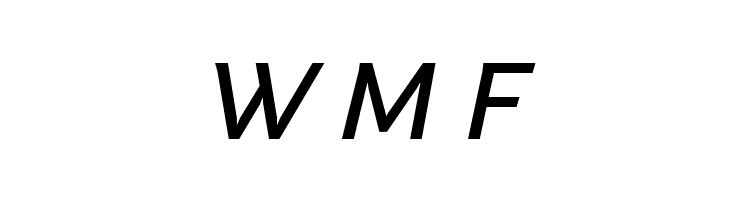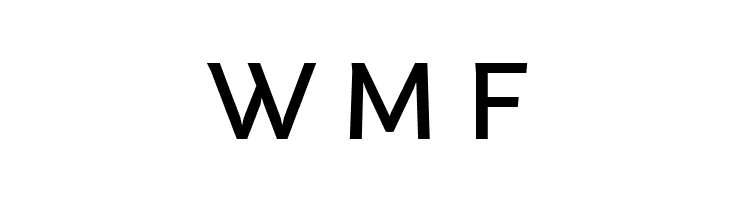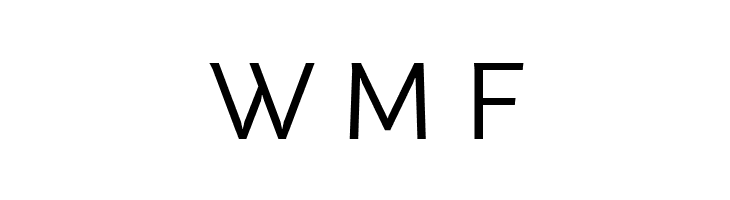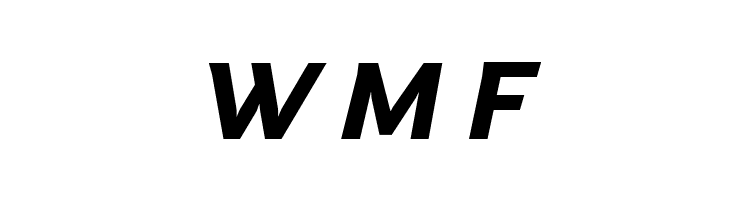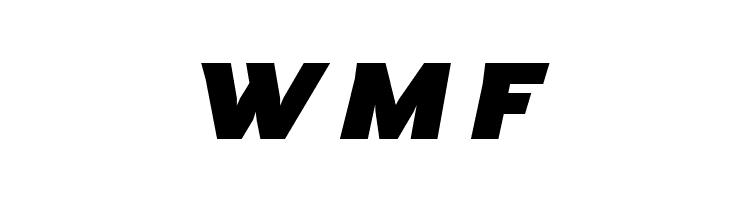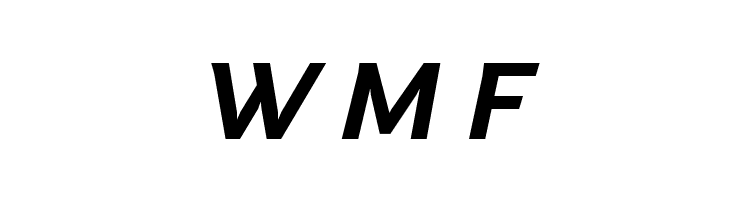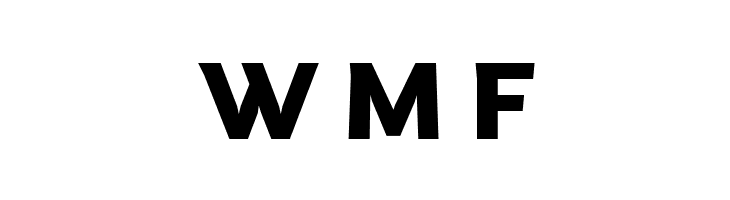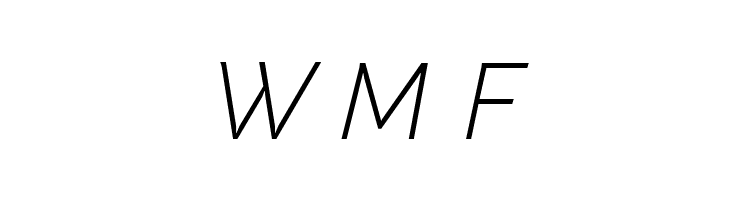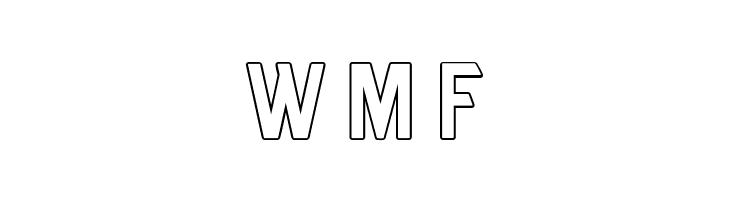
A sleek, modern italic font with smooth, flowing lines and a dynamic slant.
A modern, geometric sans-serif font with consistent stroke width and versatile applications.
A modern, light sans-serif font with clean lines and excellent readability.
A bold, italic typeface with a modern and dynamic style.
A bold, italic font with strong, dynamic strokes and a powerful presence.
A bold and italicized font with a modern, dynamic style.
A bold and heavy typeface with strong, impactful strokes and rounded edges.
A sleek, modern thin italic typeface with balanced spacing and fluid design.
A modern sans-serif font with a bold outline style and rounded edges.
A bold, geometric font with clean lines and a modern aesthetic.